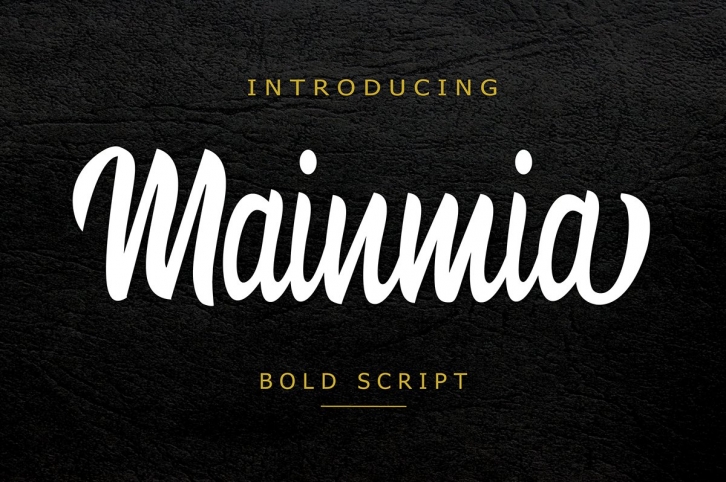
This is a mainmia script, Mainmia script is a awesome font. Come with ligatures, stylistic set, multilingual, etc. This font is perfect for your design, logo, label, badges, apparel design, etc.